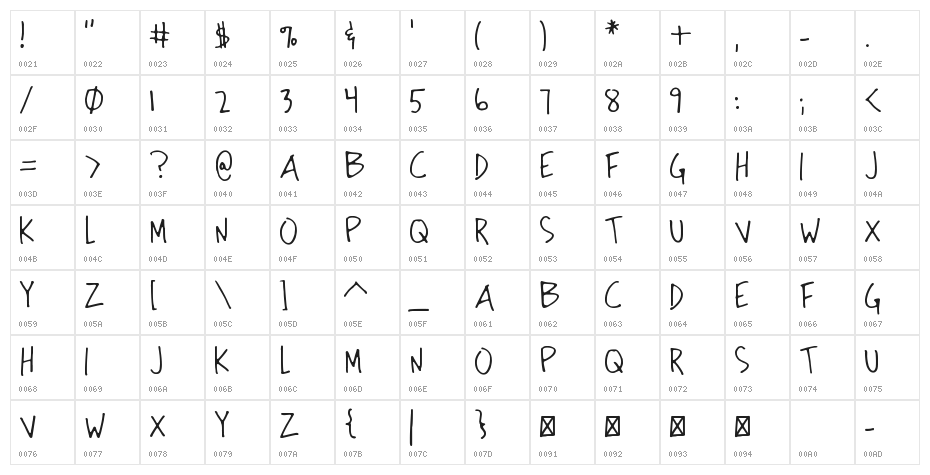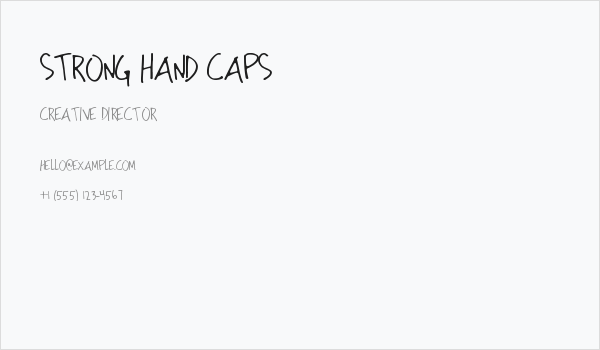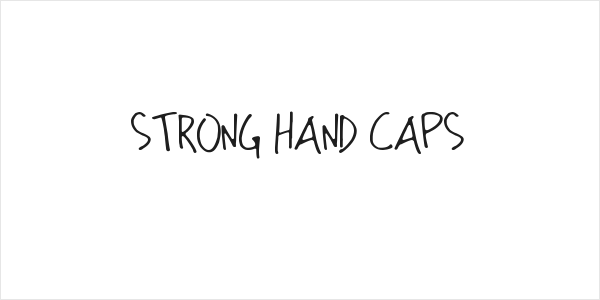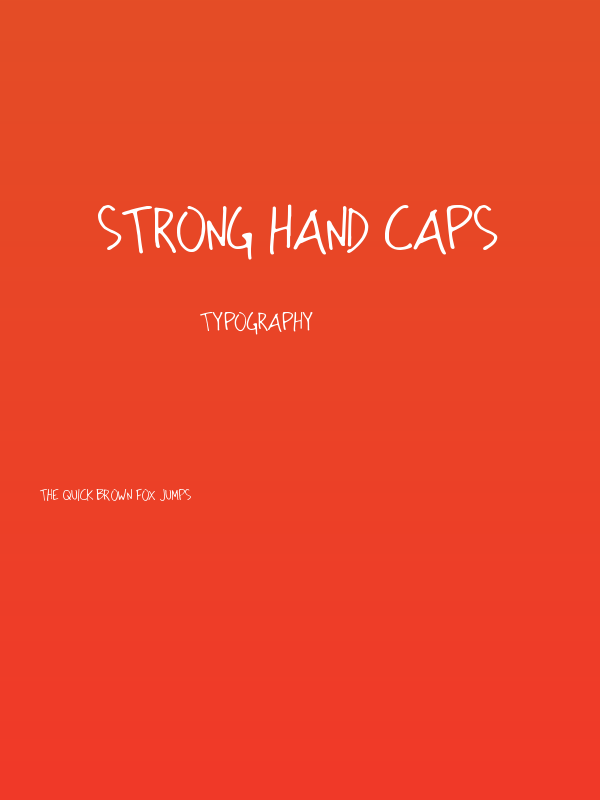
Strong Hand Caps Font
| Gesamtstil | Casual |
| Anwendungsfall | Headlines, Logos, Informal Text |
| Vorgeschlagene Projekte | Perfect for invitations, posters, social media graphics, and any project needing a personal touch. |